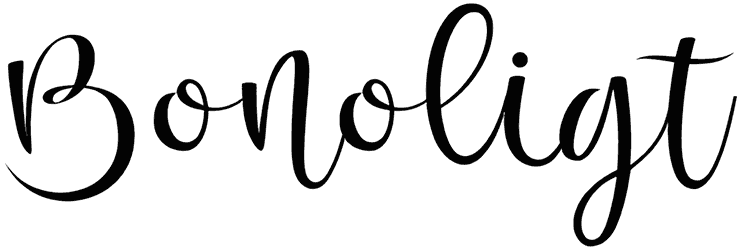
Bonoligt Font
Today we have a bouncy connected script font, Bonoligt, that has a big potential to become your favorite one. This beach font is everything and more. Once applied, it creates a unique, sweet, cheerful vibe, just what you…
Today we have a bouncy connected script font, Bonoligt, that has a big potential to become your favorite one. This beach font is everything and more. Once applied, it creates a unique, sweet, cheerful vibe, just what you need to distinguish your project. This can be used for branding, product packaging, greeting cards, advertising, and minimal concepts.